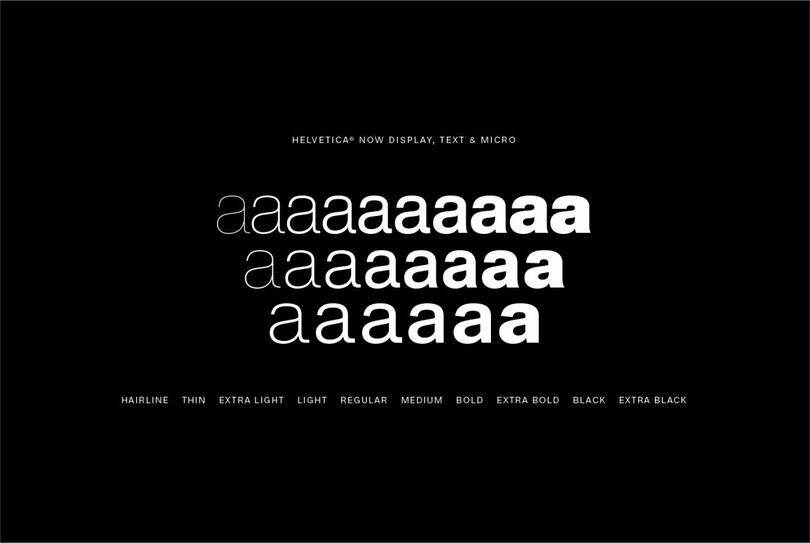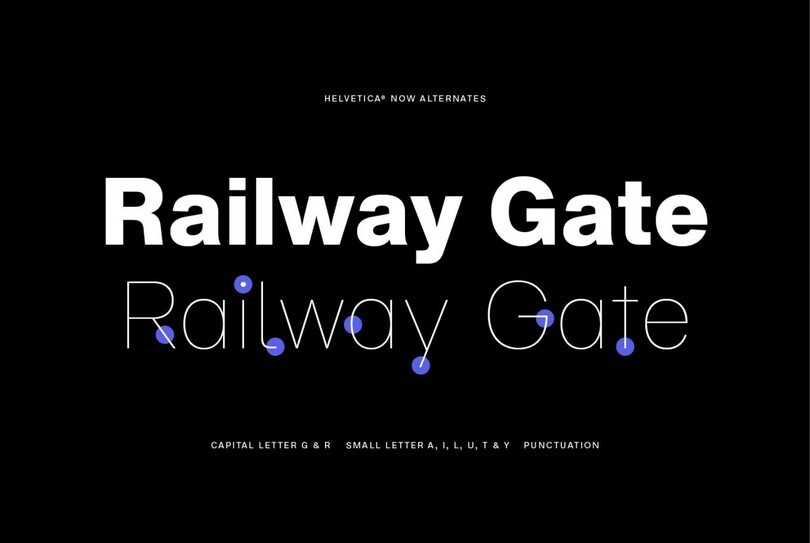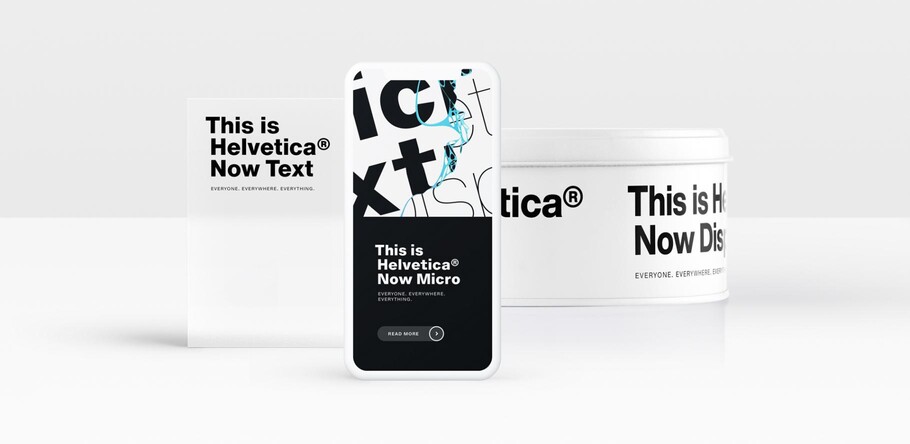
From Neue to Now: How Helvetica evolved for the 21st century.
Monotype’s team of designers added popular modifications that have been made to the typeface over the years.
It’s been six decades since Helvetica® was released, and in that time the typeface has remained the go-to choice for clarity and neutrality. However, as with many typefaces, the demands on it have increased. Helvetica’s famous Swiss simplicity is now expected to perform in a growing range of environments and at a wider spectrum of sizes than ever before.
Designers and studios might be deeply familiar with Neue Helvetica®—which was released in 1983—but it’s the product of a pre-digital era.
Enter Helvetica® Now, which mindfully reimagines this classic font to solve modern-day branding challenges while staying true to its ethos of simplicity, clarity, and global appeal. Here are four reasons current Neue users may want to switch.
The sizing
Helvetica Now offers Micro, Text and Display sizes, each of which is tailored to a particular environment—unlike Neue Helvetica which was drawn and spaced for use in text type. Designers working on posters will find Helvetica’s clear shapes emphasized in the larger Display versions, which have been spaced with headlines in mind. It’s Helvetica, but with more aplomb and assuredness and more potential for users to experiment with and express themselves. For those concerned with legibility on the printed page and in running copy, Helvetica Now’s Text sizes are a workhorse, offering robust strokes and comfortably loose spacing.
Designers working on posters will find Helvetica’s clear shapes emphasized in the larger Display versions, which have been spaced with headlines in mind.
The Micro version is a standout feature of Helvetica Now, and addresses an issue Helvetica has long faced—that of being micro-type challenged. While Neue Helvetica struggles at tiny sizes—for example on tablets and smartwatches—Helvetica Now’s Micro designs are simplified and exaggerated. They retain the impression of Helvetica at small sizes and their spacing is loose, which means legibility is maintained at microscopic sizes and across low-res environments.
Helvetica Now offers Micro, Text and Display sizes, each of which is tailored to a particular environment—unlike Neue Helvetica, which was drawn and spaced for use in text type.
The three sizes have been designed with their end environment in mind and minutely adjusted to fit the requirements of each. This means that, unlike Neue Helvetica, designers can use the typeface straight out of the box—no need for extra kerning or typographic trickery.
The palette
Helvetica Now has been designed as a complete toolbox, allowing the typeface’s more expressive side to emerge. The family offers a full set of alternates to choose from, maintaining the design’s famous clarity but allowing it to adopt subtly different voices as required.
Designers can now work with Helvetica Now’s circled figures, as well as the Helvetica-style arrow—elements they previously had to borrow from other typefaces or create separately. These extra features are included in every weight and style across the family, giving Helvetica Now greater potential for use in information graphics as well as signage.
Alternate forms of key glyphs—like a single-story a—have been added across the entire range.
The details
Helvetica Now is more than a refresh or an update. Monotype’s team of designers returned to the original design, then reassessed and redrew every glyph in the family, adding popular modifications that have been made to the typeface over the years. Recurring issues, such as the easily confused capital I and lowercase l have been addressed, with a hooked version that increases legibility at smaller sizes. Other new additions include an updated @, rounded punctuation, a rounded G, a straight-legged R, a single-story a, and a lowercase u without a trailing serif.
Monotype’s team of designers added popular modifications that have been made to the typeface over the years.
While each of these gives Helvetica Now greater utility than its predecessors, it’s also a return to the original ethos and spirit of the design. Monotype’s design team worked to a strict philosophy while designing Helvetica Now, setting themselves the challenge of minutely refining each letter to adhere ever more closely to the typeface’s mantra of clarity, simplicity and neutrality.
“When you go back to the original source, it’s so much more readable and that doesn’t have to do with the forms themselves but the spacing,” says Monotype Type Director Charles Nix. “It was about studying the spaces between the letters and figuring out what the methodology was early on, how it made the type so much easier to read, and then restoring that and improving upon it.”
It’s not what you expect
Helvetica is, perhaps, the best-known typeface around, and as such the design evokes strong feelings from both designers and end users. However, Helvetica Now challenges our perceptions. It embraces the original spirit of the design but opens up a new chapter of its story.
“I think we’ve introduced a new chapter to the Helvetica canon—one which will allow it to become something completely novel in the hands of 21st-century designers. We’ve carefully expanded a strict heritage that could have prevented its evolution,” says Nix.